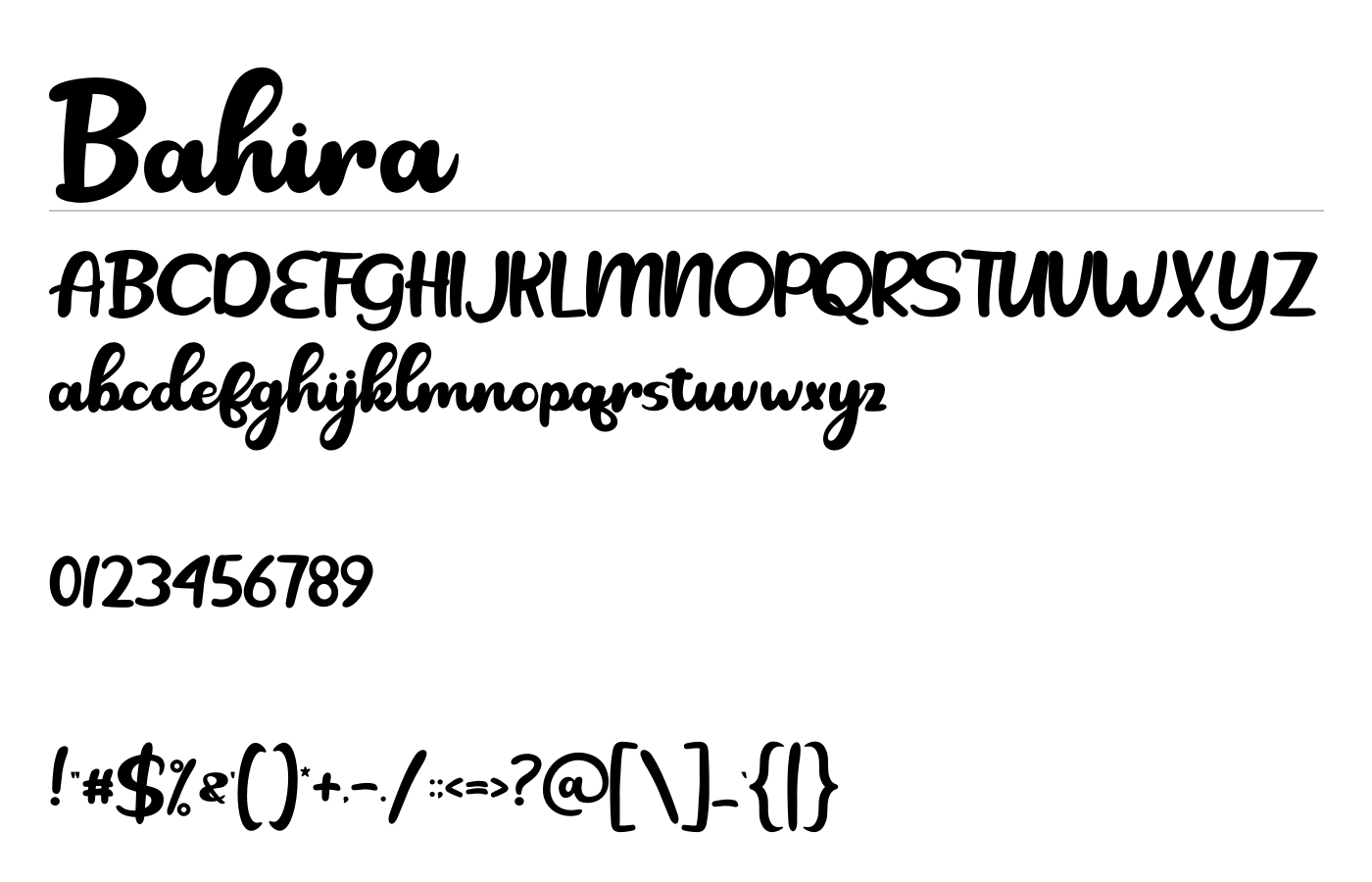
Bahira is a playful and lively script font with rounded, bold strokes that give it a friendly and approachable personality. Its smooth, casual letterforms blend cursive charm with clear readability, making it perfect for branding, logos, and creative projects that want to convey warmth and modern friendliness. This font works well for invitations, packaging, and headline text where a cheerful and inviting feel is desired.
Bahira Font
About Bahira Font
| Font family | Bahira Font |
| Designer | Skiiller studio |